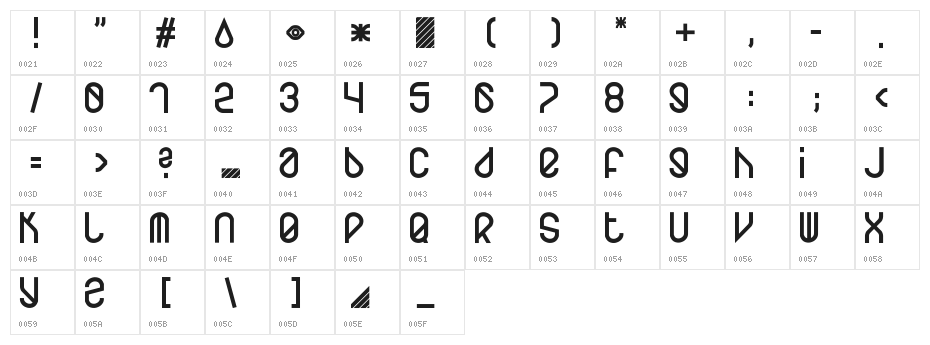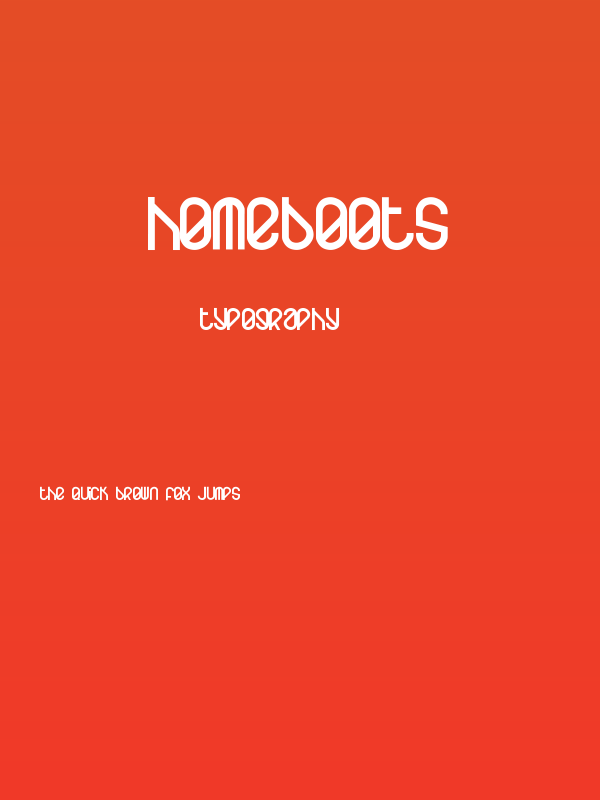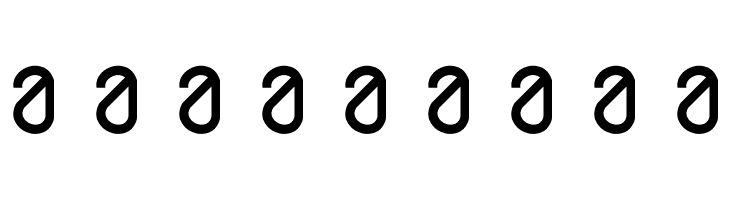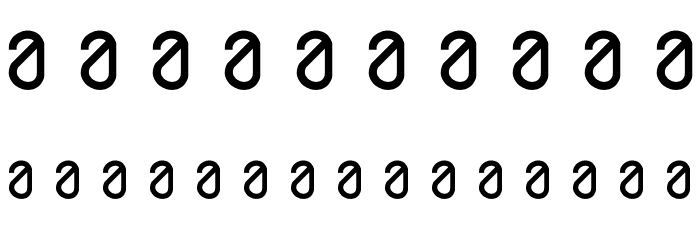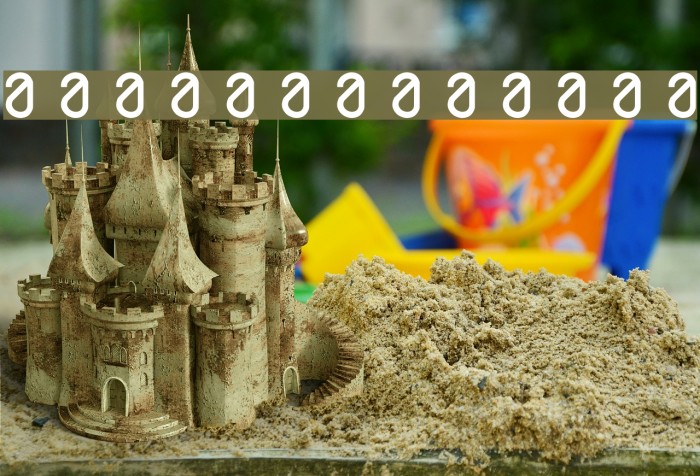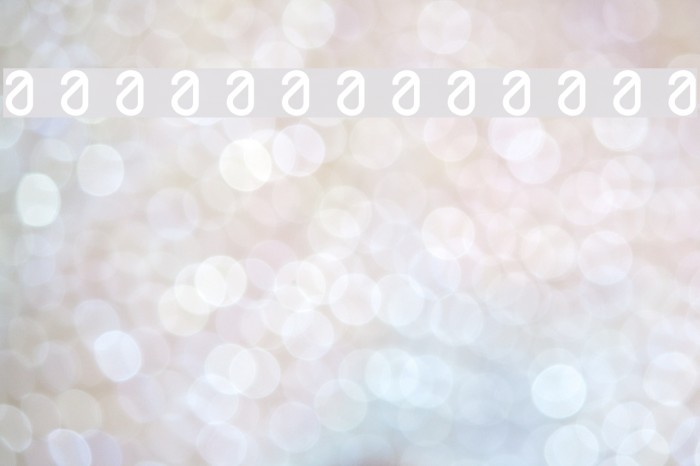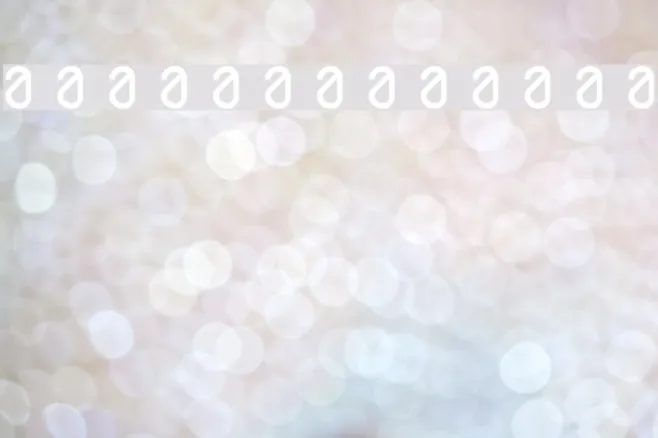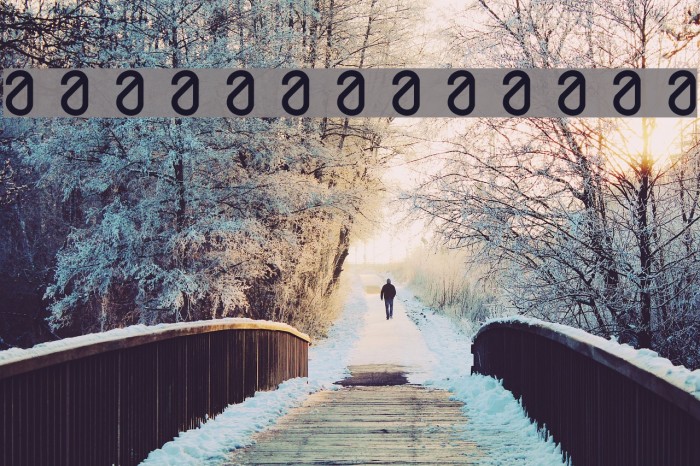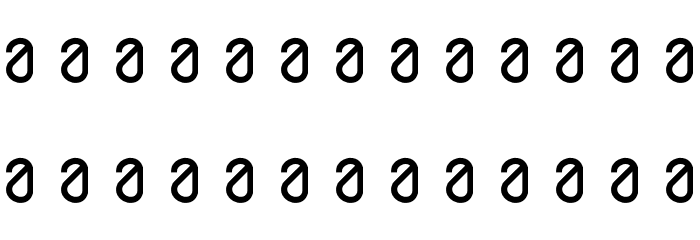
homeboots Font
homeboots Description
This design features a single character repeated in various sizes, showcasing a playful and modern style. The character has a smooth, rounded form with a consistent stroke width, giving it a friendly and approachable appearance. Its simplicity and uniformity make it versatile for various design applications. The repetition of the character emphasizes its unique shape and can be used creatively in patterns or as a decorative element. The overall look is clean and minimalistic, making it suitable for contemporary design projects.
| Use Case | Logos, Decorative patterns |
| Proposed Projects | Ideal for branding, packaging, and modern art projects where a unique, repetitive element is desired. |